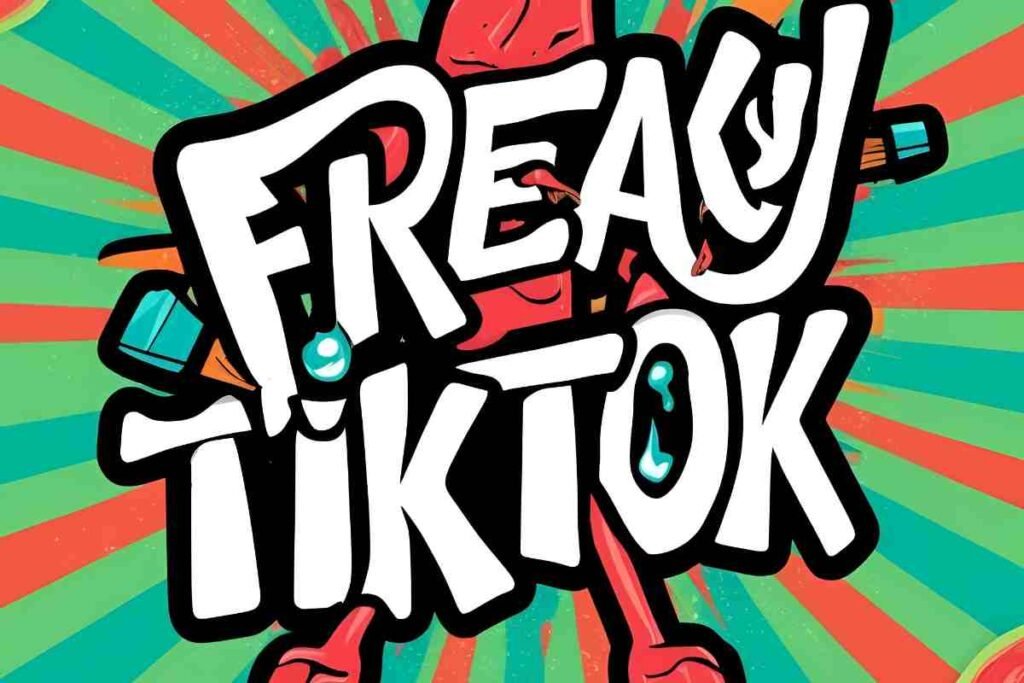
TikTok is full of surprises, and one trend that’s caught everyone’s attention is the rise of the Freaky TikTok Fonts. These unique, attention-grabbing fonts have taken over TikTok captions, bios, and even video overlays. Why? Because they make content stand out, grab attention, and keep your audience hooked.
If you’re a TikTok creator or social media enthusiast who’s curious about this trend, you’re in luck. We’ll walk you through what these fonts are, why they’re trending, and, most importantly, how you can start using them today.
What Is the Freaky TikTok Font?
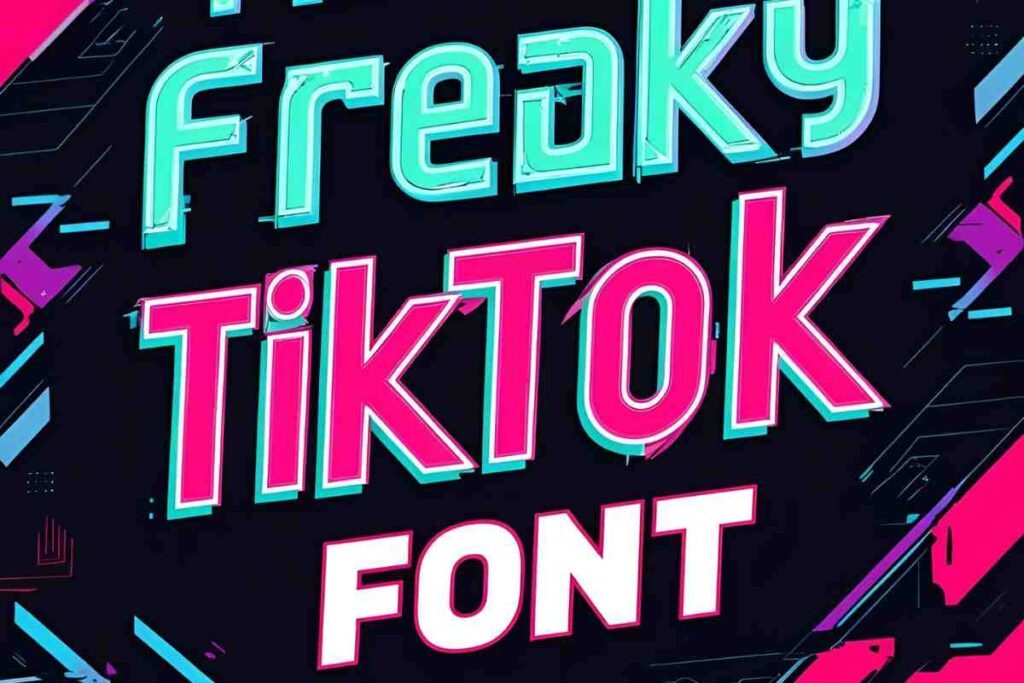
The term “Freaky TikTok Fonst” refers to funky, quirky, or out-of-the-box fonts that creators use to spice up their content. These fonts step far away from predictable, plain text and instead add personality, fun, and flair.
Imagine a caption written in a bold, dripping font or a bio with cute bubble letters—those are perfect examples of the so-called freaky fonts. Whether it’s a spooky aesthetic, a playful vibe, or a futuristic look, these fonts reflect your TikTok identity in a way default fonts just can’t.
Examples of How Creators Use Freaky Fonts:
Creators use freaky fonts in various ways to make their content more eye-catching and memorable. Social media influencers often use bold, distorted, or neon-style fonts to grab attention in posts, captions, and bios. Meme creators experiment with playful and exaggerated typography to enhance humor and emphasize punchlines.
Video content creators on platforms like TikTok and YouTube incorporate unique fonts for dramatic effects, highlighting key moments or adding a signature style to their brand. Gamers and streamers use glitchy, gothic, or futuristic fonts to match their edgy aesthetics.
While fashion and lifestyle influencers opt for handwritten or artsy fonts to add a personal touch. By strategically using freaky fonts, creators enhance their content’s appeal while maintaining readability and engagement.
Why Are Freaky TikTok Fonts Popular?
Fonts aren’t just about looks—they influence emotions and behaviors. Using freaky fonts has several perks, especially for TikTok creators trying to grow their audience and engagement.
Why Freaky Fonts Work Wonders:
- Instant Attention: Scrolling TikTok is fast-paced. A unique font immediately slows the thumb scroll and piques curiosity.
- Stronger Branding: These fonts help you establish a recognizable visual vibe—whether it’s edgy, whimsical, or sleek.
- TikTok Algorithm Love: Engagement matters on TikTok! Freaky fonts encourage comments, shares, and saves, helping boost your visibility in the algorithm.
Examples from Real Creators:
- A creator used melting drip fonts in a spooky Halloween post, generating millions of intrigued comments.
- Another used bubbly, retro fonts to match their fun, nostalgic video vibes and saw followers surge.
- Copy the generated text and paste it into your TikTok video, caption, or bio.
- Post and watch those likes rolling in!
Pro tip: Many font generators offer both free and premium versions, with premium unlocking extra-unique font styles.
Creative Ways to Use Freaky TikTok Fonts
Now that you’ve got the fonts, here’s how to use them like a pro!
Captions That Pop
Captions that pop are essential for grabbing attention and keeping viewers engaged. Using bold, eye-catching fonts, vibrant colors, and strategic placement can make your captions stand out while enhancing readability.
A well-designed caption should complement the content, reinforce the message, and guide the viewer’s focus without overwhelming the visuals. Keeping text concise, using contrasting colors for visibility, and incorporating playful or dramatic fonts where appropriate can add personality and impact.
Whether for social media, videos, or memes, captions that pop can make your content more engaging, memorable, and shareable.
Eye-Catching Bios
An eye-catching bio is key to making a strong first impression on social media. It should be concise, engaging, and reflective of your personality or brand. Using a mix of bold words, unique fonts, emojis, and a touch of humor or creativity can help your bio stand out.
Clarity is essential—ensure that your bio communicates who you are and what you do in an easy-to-read format. Adding a call-to-action, such as a link or hashtag, can also boost engagement. Whether personal or business-related, a well-crafted bio grabs attention, sparks curiosity, and encourages people to follow and connect with you.
How can I add freaky fonts to my TikTok bio or captions?